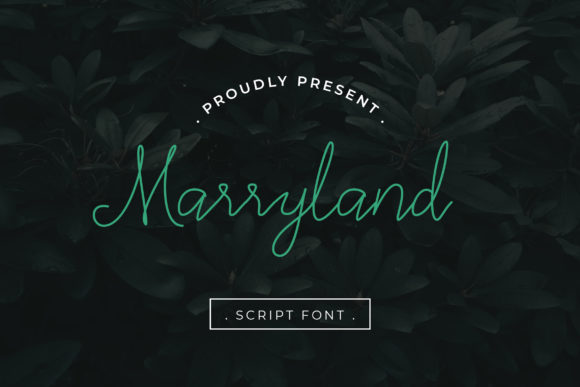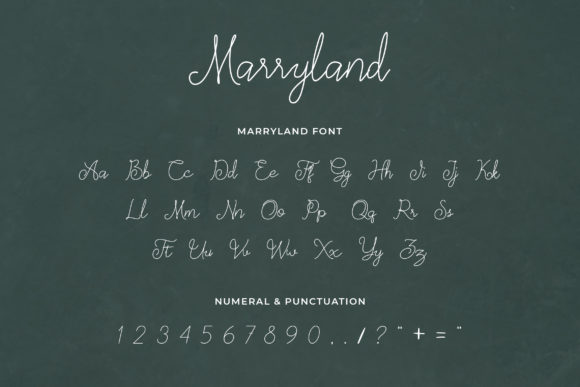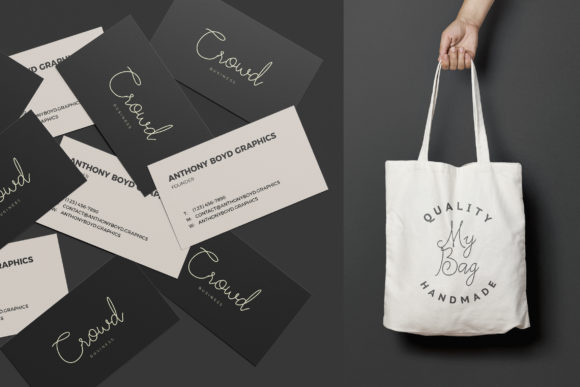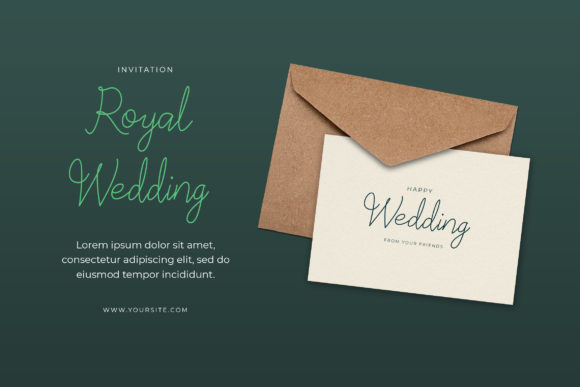
Marryland Font
About Marryland Font
“Marryland” sounds like a modern script font that combines readability, thinness, and stylishness. With its smooth curves and contemporary vibe, this font is an excellent choice for fashion branding and editorial designs.
By using “Marryland” in your projects, you can achieve a sense of elegance and sophistication. Its modern script style adds a touch of fluidity and artistic flair, making your designs feel more polished and captivating.
This font’s readability and thin appearance make it suitable for various design applications, especially in the fashion industry and editorial contexts. Whether you’re working on fashion branding, magazine layouts, social media graphics, or any other project, “Marryland” can effortlessly enhance the visual appeal and create a modern and stylish atmosphere.
With “Marryland,” you have a font that adds a touch of refinement to your designs while maintaining readability. Its smooth curves create a harmonious and balanced appearance, making your projects stand out with confidence.
Incorporate “Marryland” into your designs, and you’ll love the results it brings to your fashion branding and editorial projects. Its stylishness and thinness will make your designs visually appealing and captivating.
While embracing the modern and stylish vibe of “Marryland,” remember to maintain legibility, especially for longer texts. Proper spacing and alignment between letters ensure that the text remains clear and easy to read, preserving the font’s overall elegance and refined allure.
In conclusion, “Marryland” is a modern script font that offers readability, thinness, and stylishness. Embrace its smooth curves and contemporary vibe, and confidently use it in your fashion branding and editorial designs. With “Marryland,” your projects will exude elegance and captivate the hearts of your audience, making them visually stunning and truly exceptional.